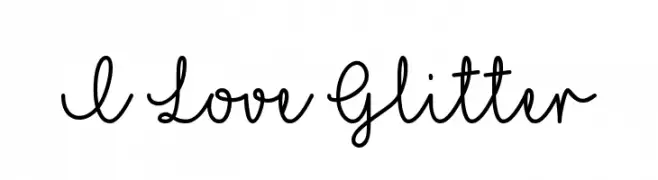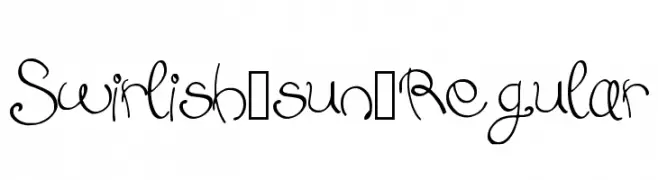
A dynamic, handwritten font with playful and expressive strokes.
An elegant and flowing script font with ornate letterforms and decorative flourishes.
A playful handwritten font with smooth curves and a casual style.
A playful handwritten font with smooth, rounded edges and consistent stroke width.
An elegant, flowing script font with ornate, calligraphic details.